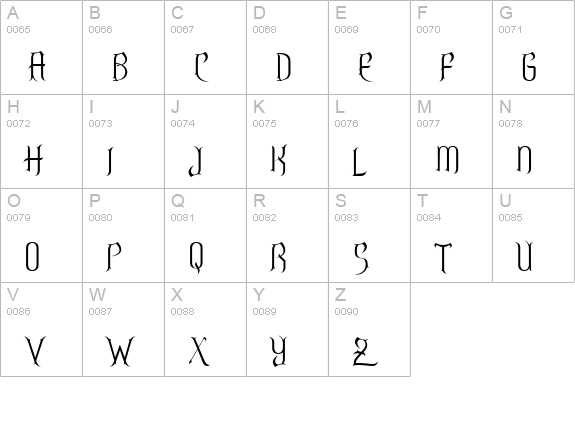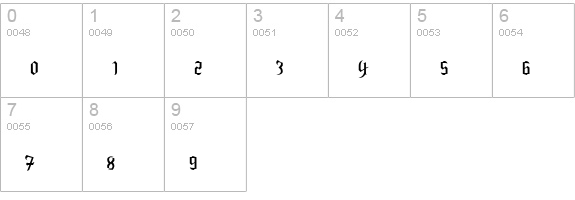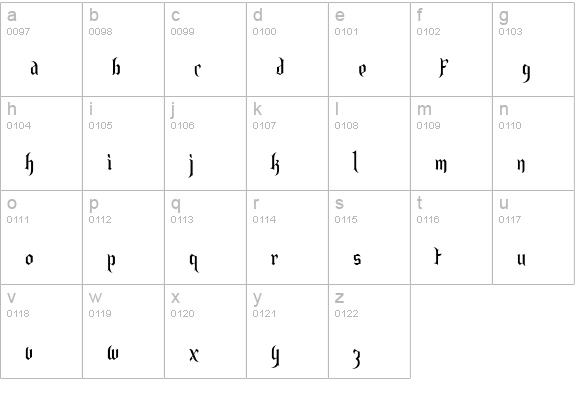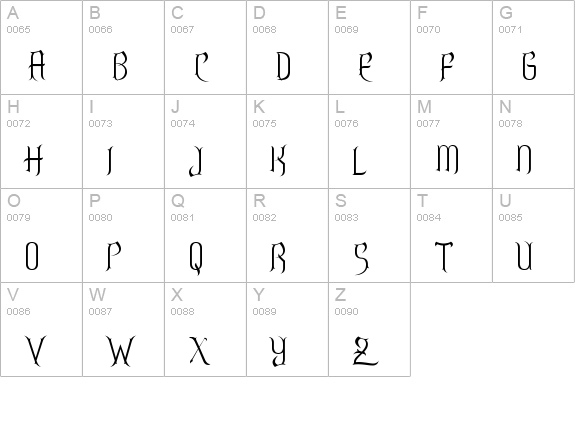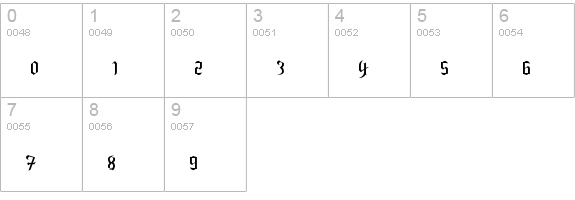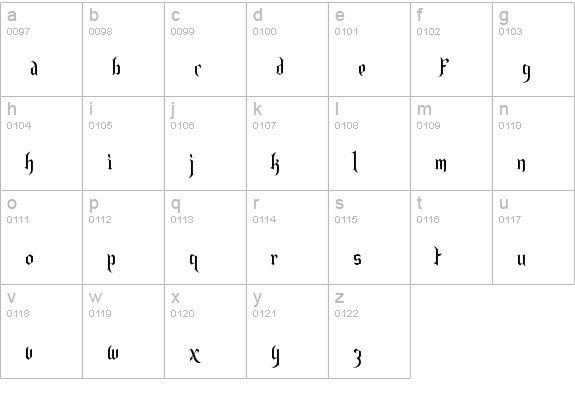
Endor Alt Font Details
Endor Alt is a captivating font that exudes a unique and modern appeal. With its sleek and stylish design, this font is perfect for adding a touch of sophistication to any project. It combines elegant curves with sharp edges, resulting in a visually striking typeface that is sure to make a lasting impression. What sets Endor Alt apart is not only its exceptional aesthetics but also its versatility. Whether you're designing a logo, creating eye-catching headlines, or crafting a beautiful invitation, this font will effortlessly elevate your work to new heights. Its clean and legible letterforms ensure clarity, making it suitable for both print and digital mediums. One of the most remarkable aspects of Endor Alt is that it is freely available to download at FontsMarket.com. This means that you can enjoy the benefits of this exceptional font without any cost. Its accessibility makes it an ideal choice for designers, students, and anyone else looking to enhance their creative projects without breaking the bank. Endor Alt brings a fresh and contemporary vibe to your typography arsenal. Its distinctive style will captivate your audience and leave a lasting impression. So why wait? Discover the magic of Endor Alt today and take your design projects to the next level with this extraordinary font, available for free at FontsMarket.com.